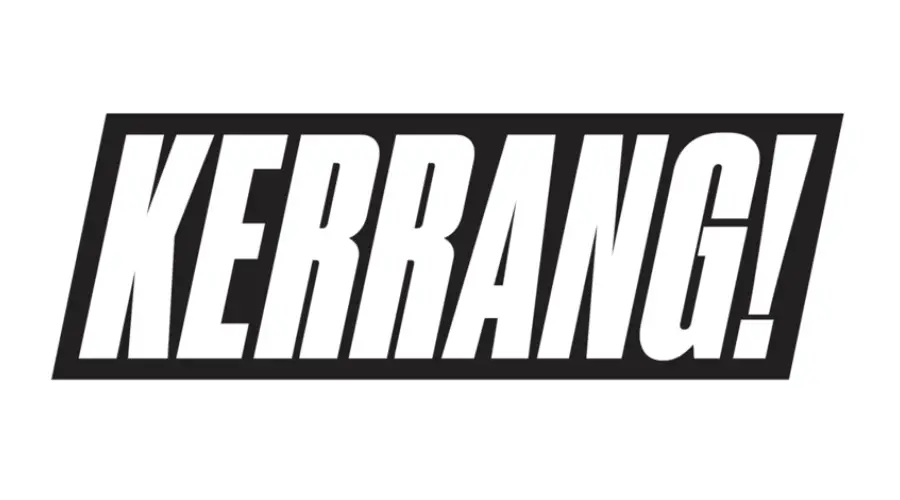
The Kerrang Font is closely associated with the iconic Kerrang! magazine, a UK-based publication dedicated to rock, metal, and punk music. The magazine, first published in 1981, has become a staple in the music industry, known for its bold and edgy aesthetic. The font used in its logo and branding plays a significant role in conveying its energetic and rebellious vibe.
Druk Condensed Super Italic by Berton Hasebe The exact font used in the Kerrang! logo.